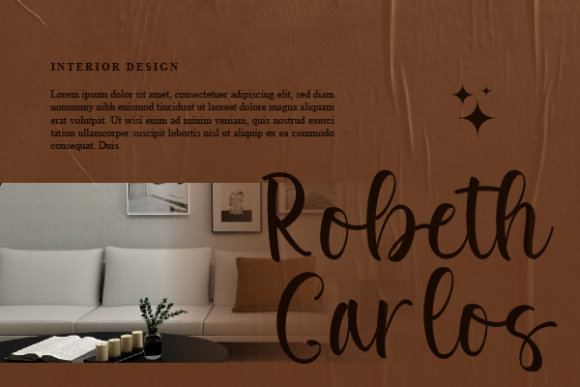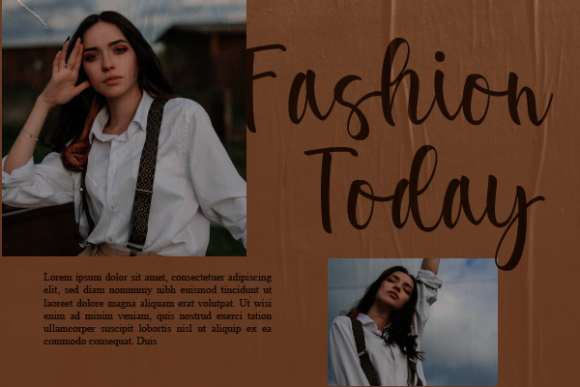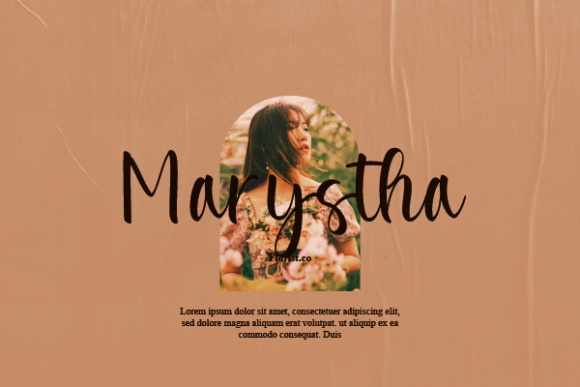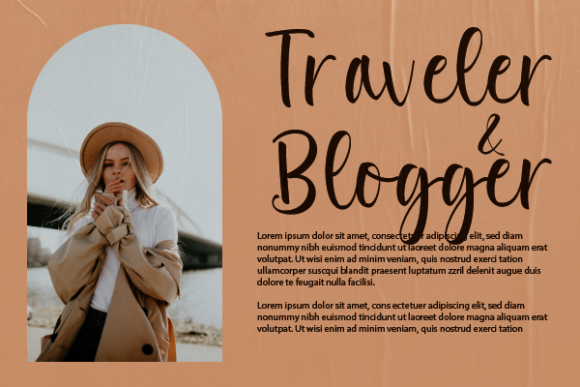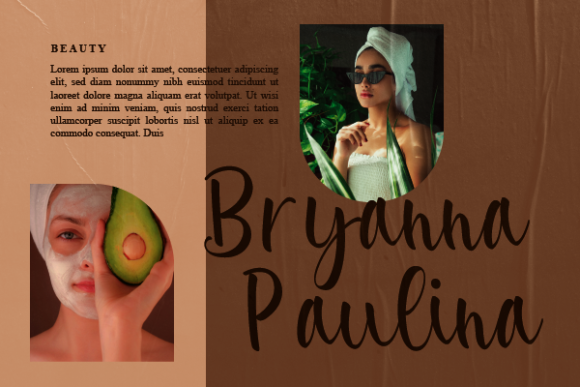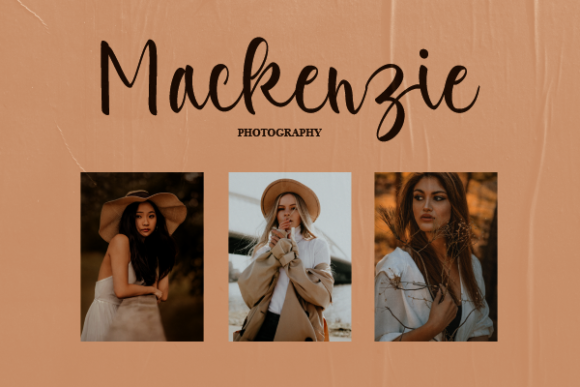
Bella Sanderson Font: Elevate Your Designs with Elegance and Sophistication
Are you searching for a font that exudes elegance, sophistication, and romance? Look no further than the stunning Bella Sanderson Font. This beautiful script font is perfect for designers and crafters who want to add a touch of luxury to their creations. In this article, we’ll dive into the world of Bella Sanderson, exploring its features, uses, and benefits.
What is Bella Sanderson Font?
Bella Sanderson is a flowing and graceful script font that is sure to capture your heart. Its ravishing style makes it an ideal choice for a variety of design projects, from wedding invitations and stationery to social media posts and more. With its elegant and refined appearance, Bella Sanderson is perfect for those who want to create beautiful and sophisticated designs.
Key Features of Bella Sanderson Font
So, what makes Bella Sanderson Font so special? Here are some of its key features:
- Flowing and Graceful: Bella Sanderson has a smooth, flowing design that gives it a sense of elegance and sophistication.
- Script Style: This font features a beautiful script style that is perfect for creating romantic and luxurious designs.
- Versatile: Bella Sanderson can be used for a wide range of design projects, from wedding invitations to social media posts.
- Easy to Read: Despite its elegant appearance, Bella Sanderson is easy to read, making it perfect for body text and headlines.
Uses of Bella Sanderson Font
So, how can you use Bella Sanderson Font in your designs? Here are some ideas to get you started:
- Wedding Invitations: Create beautiful and elegant wedding invitations that set the tone for the big day.
- Stationery: Use Bella Sanderson to create stunning stationery, including letterheads, greeting cards, and more.
- Social Media Posts: Add a touch of elegance to your social media posts and make them stand out from the crowd.
- Logos and Branding: Use Bella Sanderson to create luxurious logos and branding materials that reflect your brand’s personality.
Benefits of Using Bella Sanderson Font
So, why should you choose Bella Sanderson Font for your designs? Here are some benefits:
- Unique and Exclusive: Bella Sanderson is a unique and exclusive font that will set your designs apart from the rest.
- Time-Saving: With Bella Sanderson, you can create stunning designs in no time, saving you time and effort.
- High-Quality: Bella Sanderson is a high-quality font that is designed to produce crisp and clear results, even at small sizes.
Tips for Using Bella Sanderson Font
Here are some tips for using Bella Sanderson Font in your designs:
- Pair with Other Fonts: Experiment with pairing Bella Sanderson with other fonts to create stunning contrast and visual interest.
- Use for Headlines: Use Bella Sanderson for headlines and titles to add a touch of elegance and sophistication.
In conclusion, Bella Sanderson Font is a beautiful and elegant script font that is perfect for designers and crafters who want to add a touch of luxury to their creations. With its flowing and graceful design, versatility, and ease of use, Bella Sanderson is an excellent choice for a wide range of design projects. So why wait? Fall for the ravishing style of Bella Sanderson and elevate your designs to new heights!